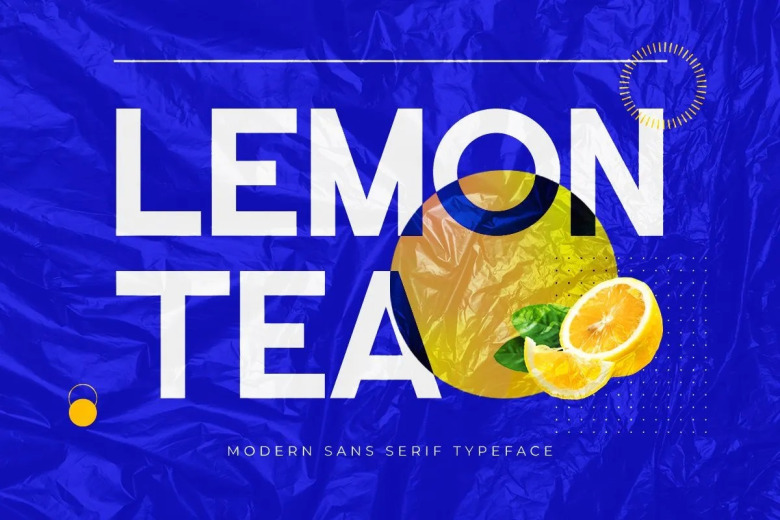
Lemontea Font
Lemontea is a modern and simple yet enthusiastic sans serif font. It will give high marks to your designs like branding, posters, quotes, web, blogs, magazines, newspapers, game names, movie titles, advertisements, all social media, logos, t-shirt designs, fonts and much more!
Lemontea Sans Serif Font